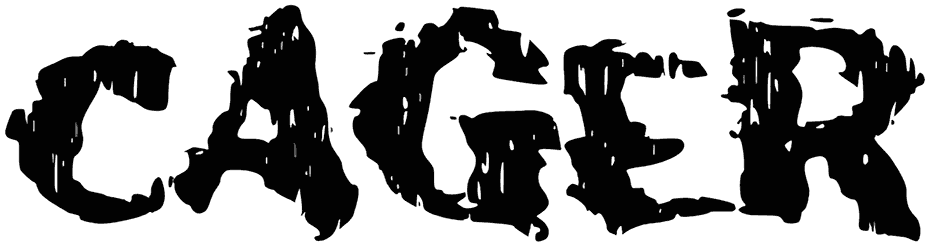
c Cager Font
Need a punk look for your text? c Cager can do the job perfectly. This mountain font has trashy characters with a messy and distorted design that gives an edgy thriller to the viewers. You can use the font for informal punk headlines, scary movie titles, comic books, party and sale flyers, shop signs, and logo designs. All the characters are extra bold, which can be your eye-catching element.